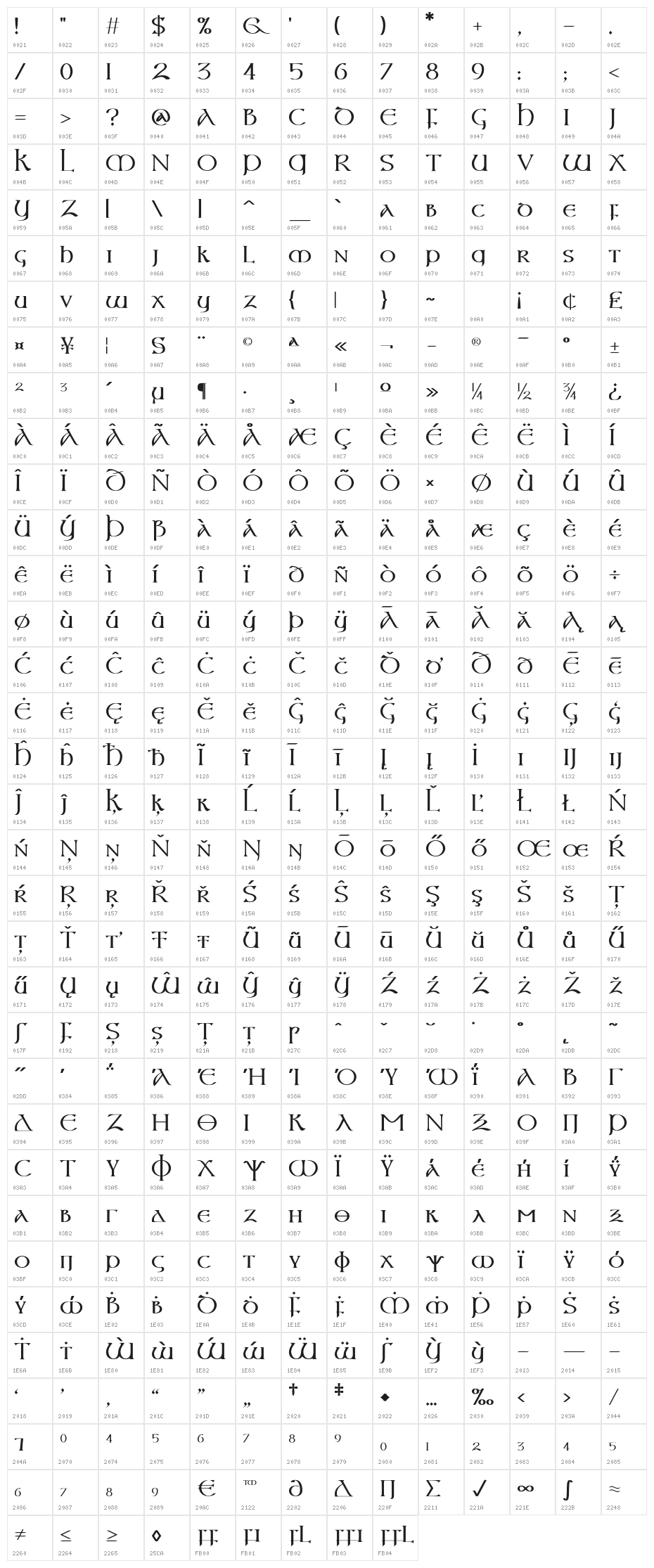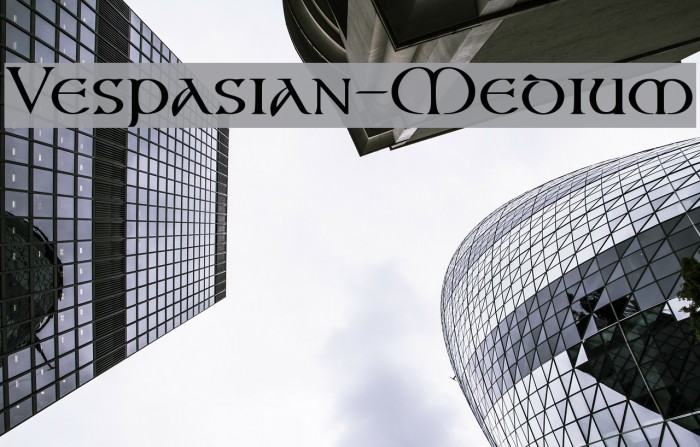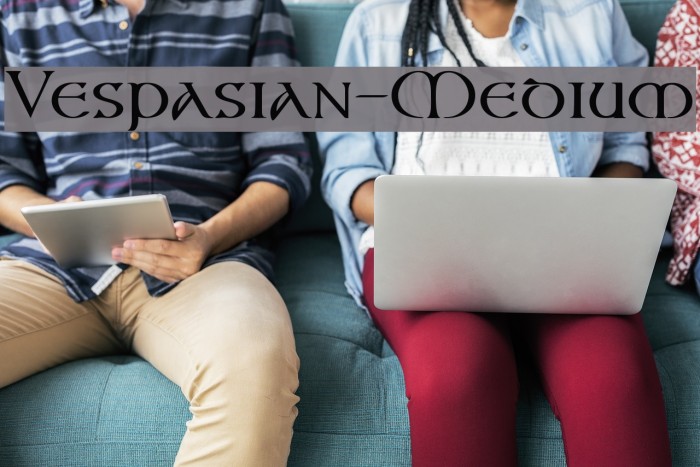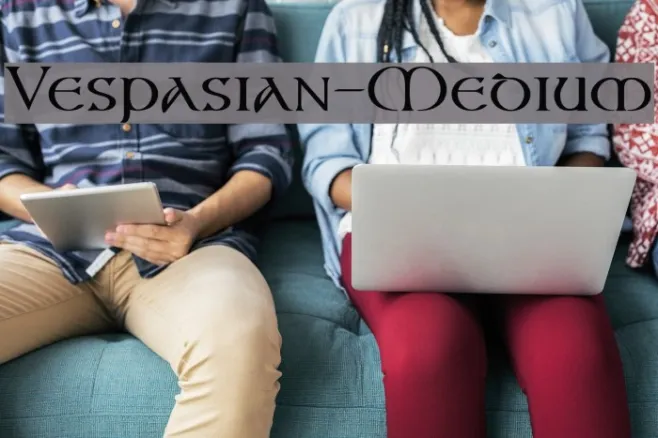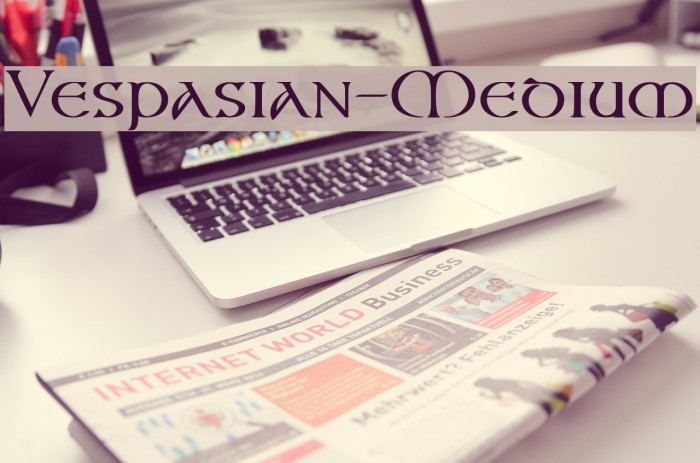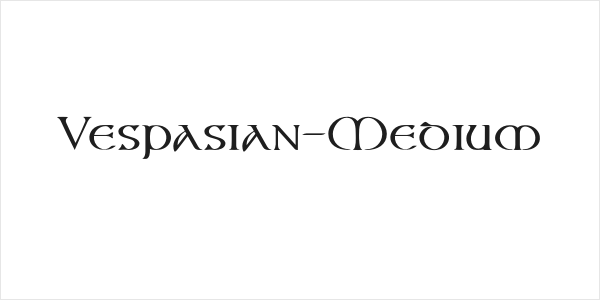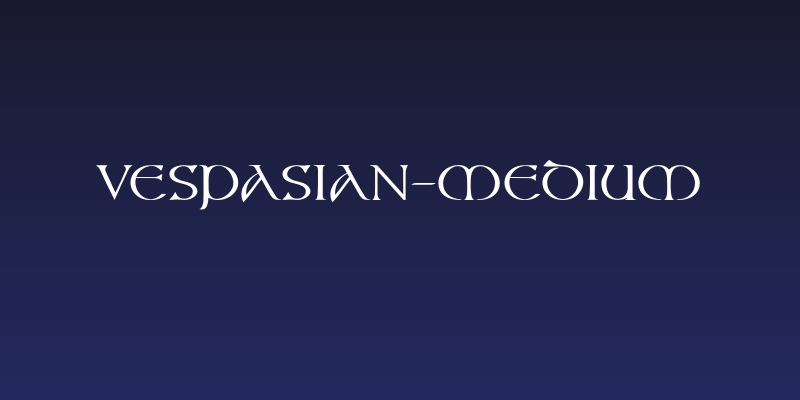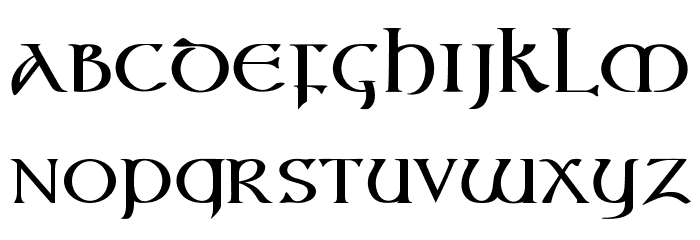
Vespasian-Medium Font
Vespasian-Medium Description
This font features a unique blend of classic and modern elements, characterized by its sharp, angular serifs and distinctively curved strokes. The uppercase letters exhibit a strong presence with their bold, geometric shapes, while the lowercase letters maintain a harmonious balance with more fluid and rounded forms. The numerals are designed with a consistent style, ensuring readability and aesthetic appeal. Special characters are crafted with the same attention to detail, adding versatility to the font's use. Overall, this font exudes a sense of elegance and sophistication, making it suitable for a variety of design projects.